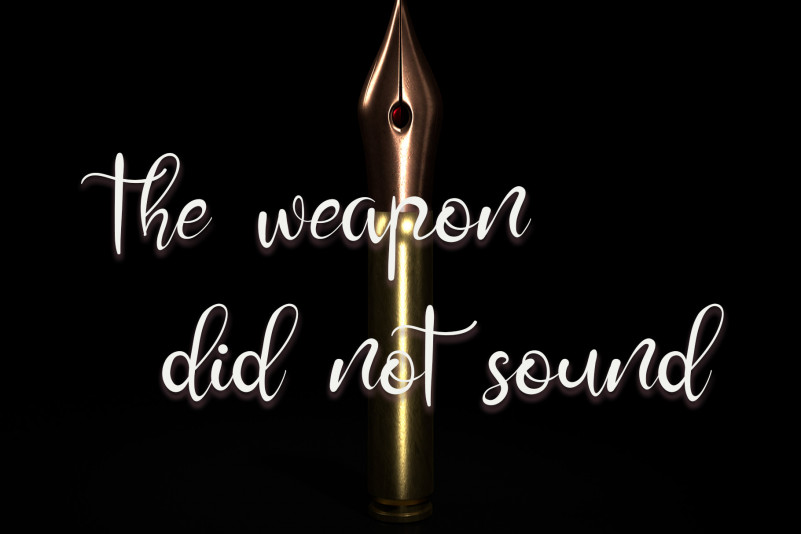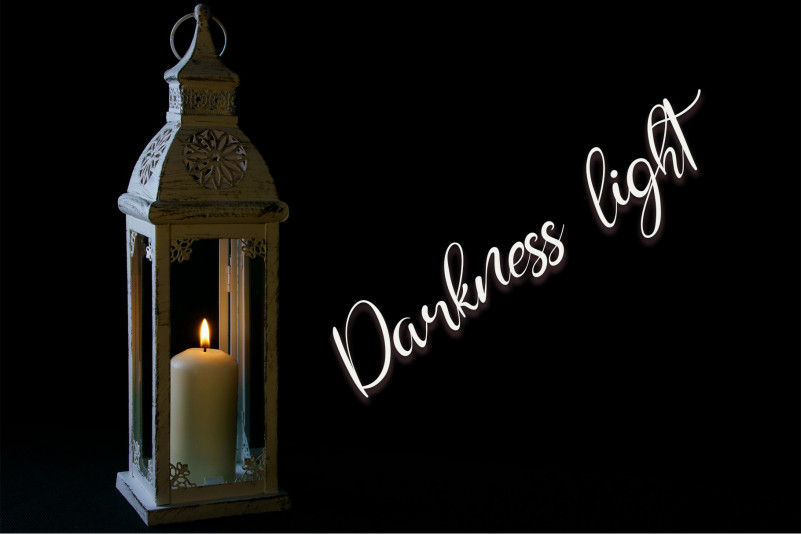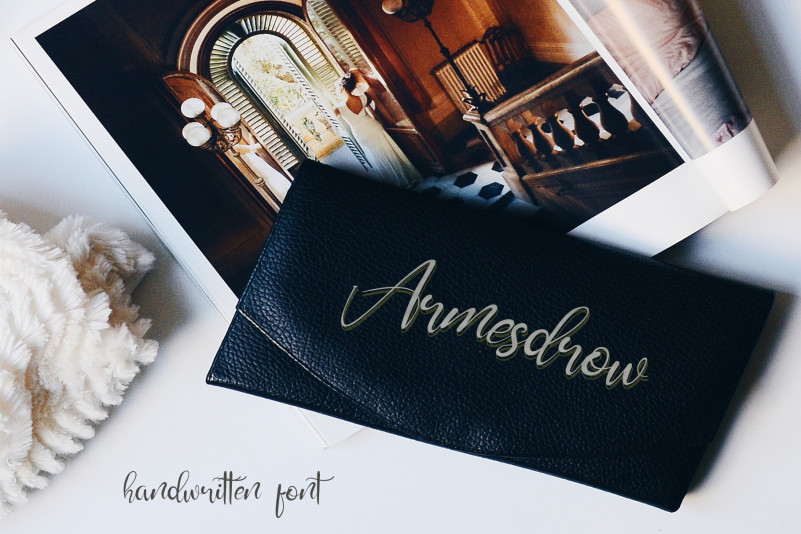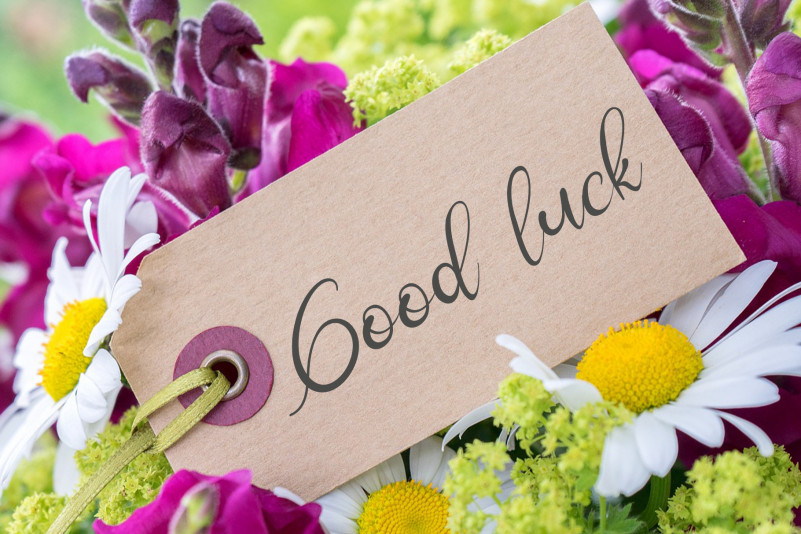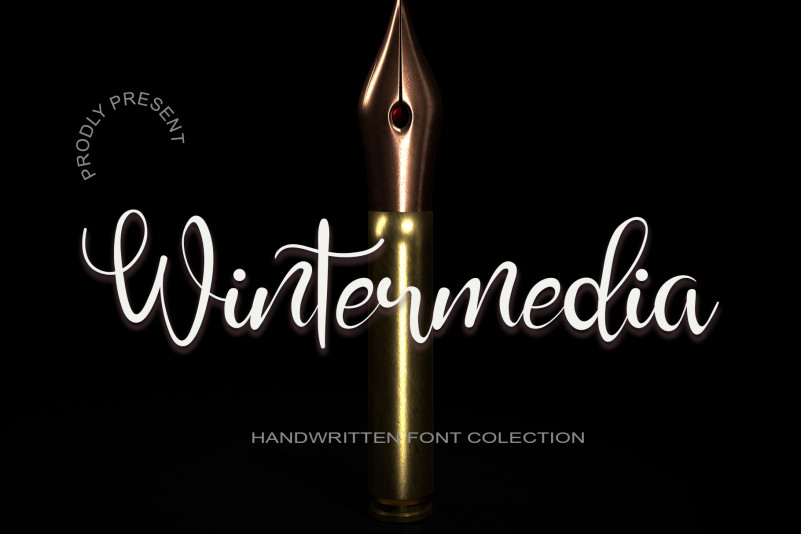
Wintermedia Font
Wintermedia Script Font
This is a smooth and elegant handwritten font. This font has a lovely touch of character, perfect for a wide variety of designs. Fall in love with its incredibly versatile style and use it to create spectacular designs!